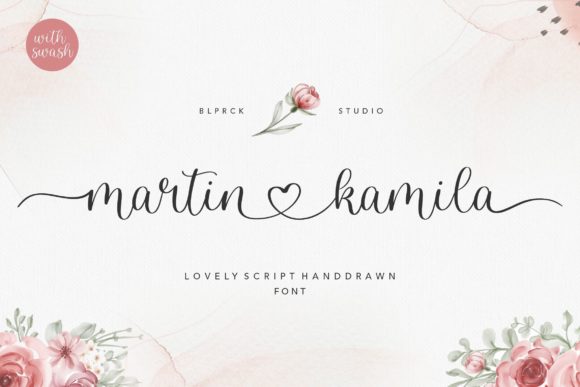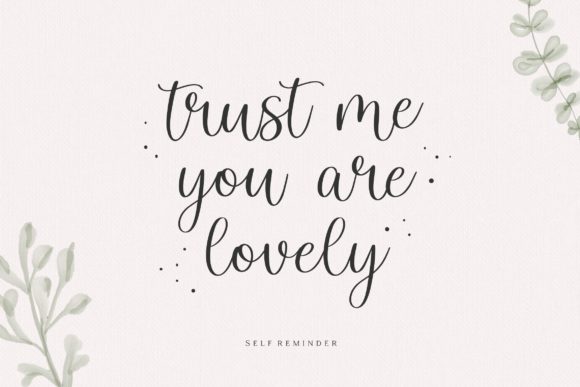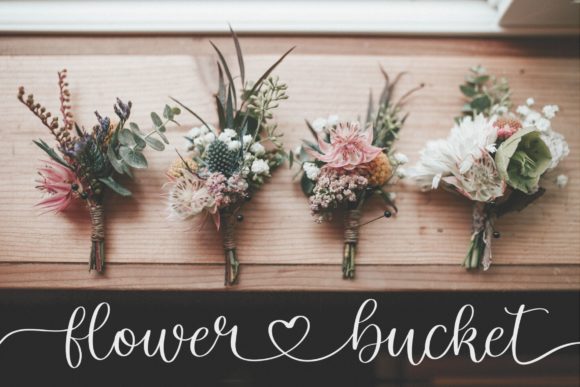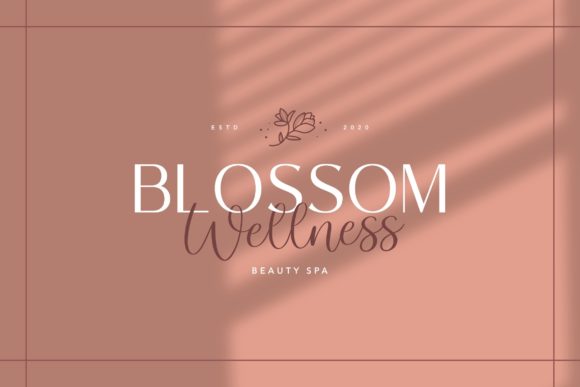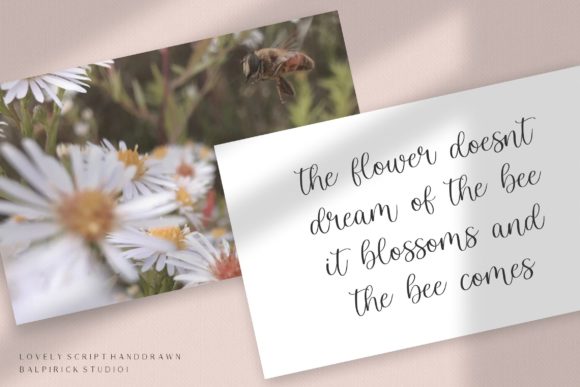
About Martin Kamila Script Font
Martin Kamila Script is a thin lettered, light and delicate script font, featuring a lovely flow. This font is PUA encoded which means you can access all of the glyphs and swashes with ease!
It will add a luxury spark to any design project that you wish to create!